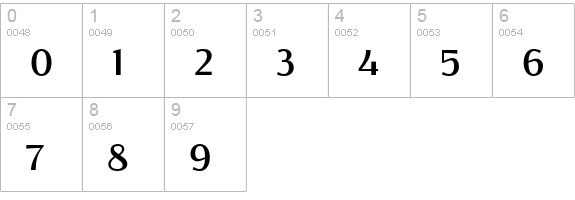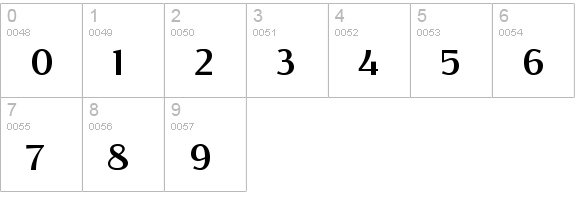
Resagokr Bold is a strong, high-contrast variant in the Resagokr typeface family \xE2\x80\x94 well suited to headlines, attention-grabbing titles, and strong calls-to-action.
Resagokr Bold is a stunning and eye-catching font that is sure to make a bold statement in any design project. With its strong, thick lines and sharp edges, this font exudes confidence and power. Whether you're creating a logo, poster, or website, Resagokr Bold will demand attention and leave a lasting impression. What sets Resagokr Bold apart is not only its striking design but also the fact that it is available for free. That's right – you can freely download this extraordinary font at FontsMarket.com. This means that you can add Resagokr Bold to your font collection without breaking the bank, allowing you to explore a wide range of creative possibilities without any limitations. Resagokr Bold is perfect for those who want to make a statement with their typography. Its bold and commanding presence ensures that your message will be seen and heard. Whether you're designing a poster for a music festival, creating a website for a cutting-edge brand, or crafting an attention-grabbing social media post, Resagokr Bold will elevate your design to new heights. Don't miss out on this incredible opportunity to enhance your design projects with Resagokr Bold. Visit FontsMarket.com today and freely download this remarkable font. Embrace the power of Resagokr Bold and let your creativity soar to new levels.